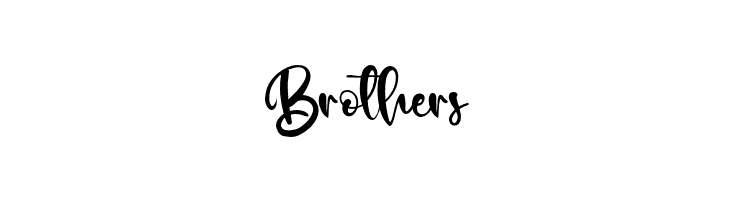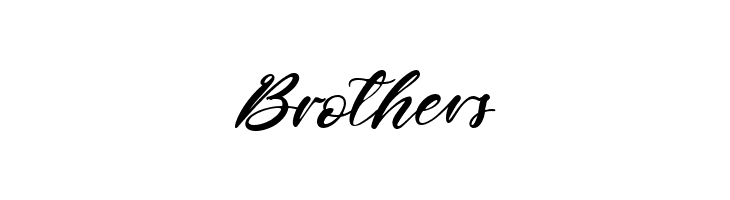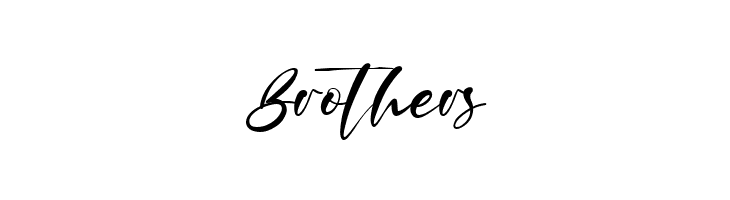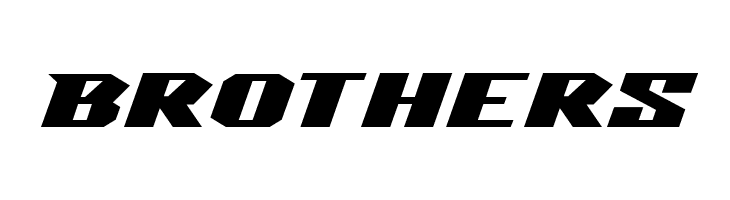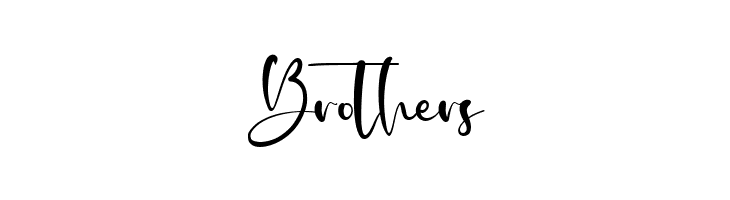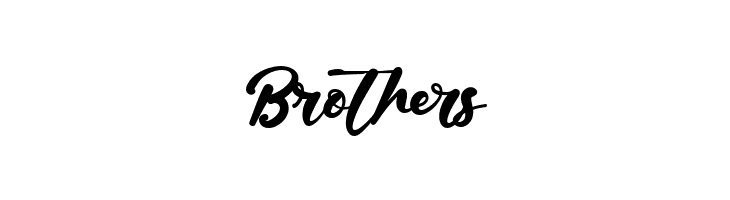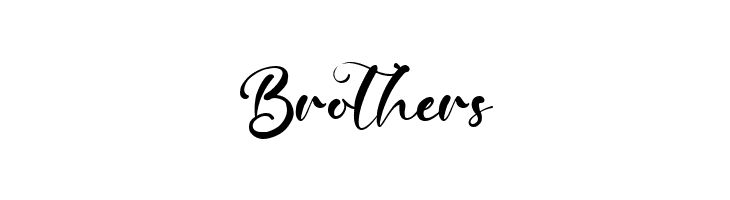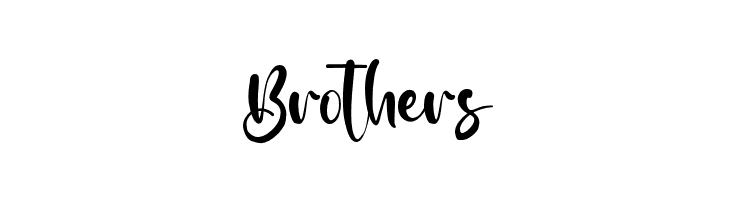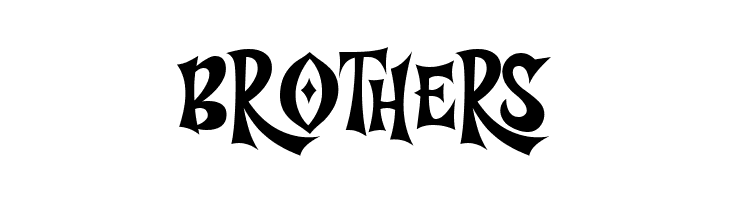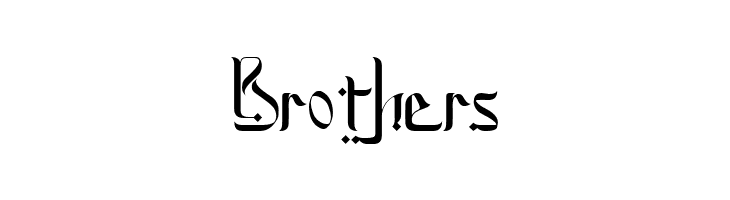
• Austina Alma
An elegant and flowing script font with graceful curves and bold flourishes.
• Bostana
• Julia Antonio
A bold, expressive script font with dynamic strokes and elegant curves.
• Allertown
A lively and flowing script font with elegant curves and smooth transitions.
• East Passage
A bold, playful script font with a handwritten style.
• Bagonk-Helloween
A bold, playful Halloween-themed font with jack-o'-lantern faces on each character.
• Hill Collosal
A dynamic and elegant script font with fluid strokes and a sophisticated style.
• Mister Roman
A playful, handwritten-style font with elegant, flowing lines.
• Samandriel
A playful and elegant script font with a handwritten style.
• Four Signature
An elegant script font with flowing cursive letters and refined flourishes.
• Madison Script
An elegant script font with fluid, connected strokes and a sophisticated flair.
• Melinda Johan
A cursive, handwritten font with elegant, flowing letters.
• Iron Bridge
A bold, angular font with a dynamic slant and strong geometric influence.
• Hello Sannie
A playful and expressive handwritten font with dynamic cursive letterforms.
• Luke Osmond
A lively, handwritten script font with elegant curves and fluid connections.
• Shielfie
An elegant, flowing script font with ornate uppercase and smooth lowercase letters.
• Shielfie-Christmas
A festive script font with snowflake accents, perfect for holiday-themed designs.
• Maystone
A modern, elegant script font with flowing cursive letters.
• Blackrose Ornament
Ornamental flourishes with a vintage, decorative style.
• Blackrose
An ornate Blackletter font with gothic, medieval characteristics.
• Bloodsoul
A dripping, horror-themed font with a bold and eerie style.